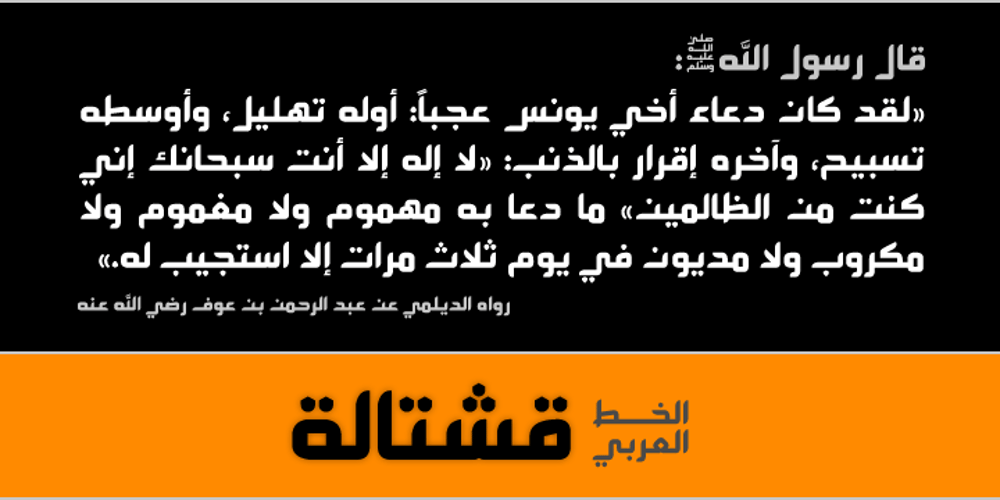
Castile Font Family was designed by Eyad Al-Samman and published by Eyad Al-Samman. Castile contains 3 styles and family package options. Castile is a central region of Spain that formed the core of the Kingdom of Castile, under which Spain was united in the 15th and 16th centuries. “Castile” is a Kufic modern Arabic typeface. It is suitable for books’ covers, advertisement light boards, and titles in magazines and newspapers. It is very distinctive when used in black and white printout. It decorates colored pages and makes artworks more attractive. This font comes in three different weights. I adore Spain and the historical achievements of the Islamic civilization existed there in the past. By designing “Castile” Typeface, I wanted to refer to the Islamic civilization that Muslims had in Spain and especially in Andalusia. Today the name of Castile survives in two autonomous regions of Spain: Castile-La Mancha (capital city is Toledo) and Castile-Leon (capital city is Valladolid). The main characteristic of “Castile” Typeface is in its modern open-end style for some of its Arabic characters such as “Sad”, “Dad”, “Seen”, “Sheen”, “Qaf”, “Faa”, “Yaa” and others. The shape of the characters’ “dot”, “dots”, and “point” is innovative; a triangle with a semi-circle shape. “Castile” Typeface is suitable for books’ covers, advertisement light boards, and titles in magazines and newspapers. Its charactersí modern Kufic styles give the typeface more distinction when it is used also in posters, greeting cards, covers, exhibitionsí signboards and external or internal walls of malls or metroís exits and entrances. It can also be used in titles for Arabic news and advertisements appeared in different Arabic and foreign satellite channels.